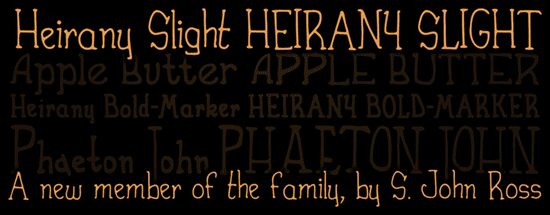
Heirany Bold-Marker by S. John Ross of Cumberland Games is a free cartoon display font with chunky, softly rounded, hand-drawn lettering. Its uneven stroke widths, soft bends, and blunt, flared ends give the letters the amiable wobble of inked storybook type.
Children's publishing is its most convincing home for young readers, especially on book covers where lettering should feel drawn rather than typeset. The same rounded irregularity suits board-game packaging and playful food branding, particularly for products built around cheerful illustrated mascots. In activity books, it can turn section headings into part of the illustration, echoing loose outlines and friendly cartoon artwork.
Heirany Bold-Marker